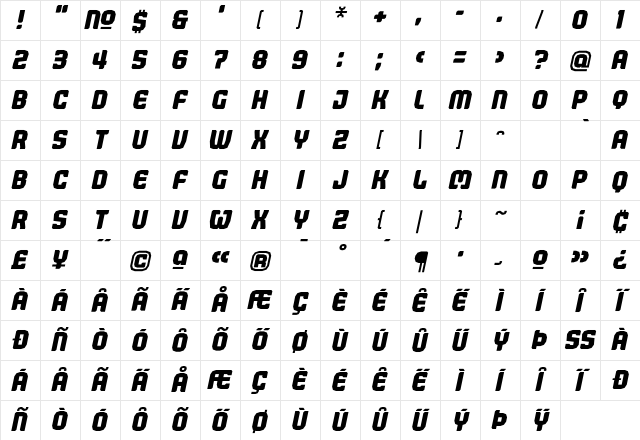
Judgement is a composed and adaptable typeface that performs quietly and consistently across a wide range of design contexts. The slanted form adds forward momentum and visual energy. Its bold stroke weight gives it real presence on the page.
Pro Tip: Use Judgement for emphasis, pull quotes, and subheadings where its slanted energy can add rhythm to the layout.